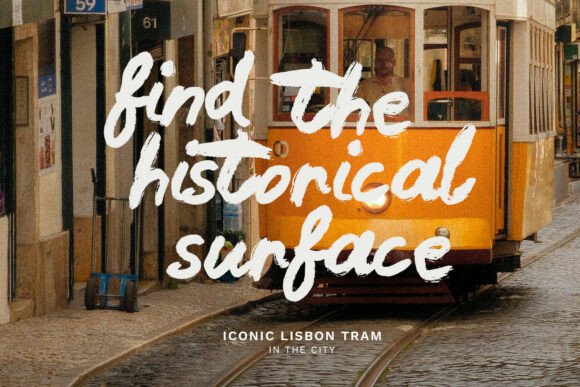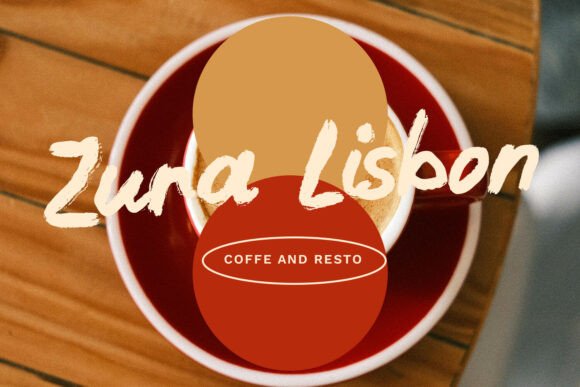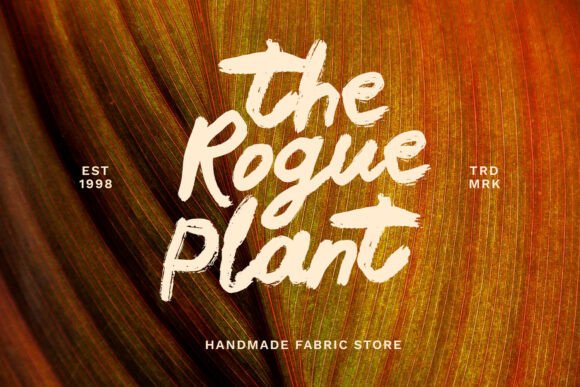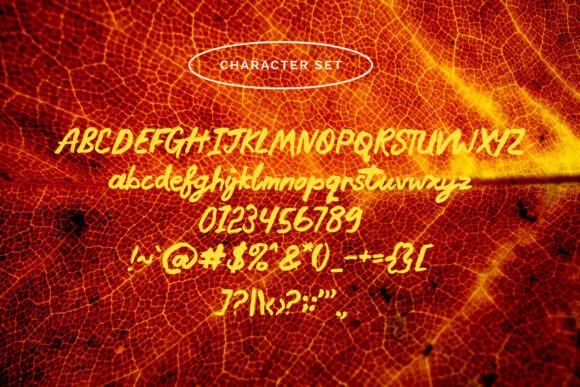
Introduction to Mantis Love Font
Have you ever stared at a blank canvas, waiting for inspiration to strike? It’s that moment when you crave a design that feels authentic and handmade. For designers, there’s nothing quite like the thrill of creating a piece that’s truly unique and reflects their artistic vision. And that’s exactly what the Mantis Love Font offers – a natural brush font that exudes a sense of organic charm and character.
Designed to evoke the feel of hand-stroked brushstrokes and authentic ink textures, this font is a game-changer for any creative project. With its raw yet balanced aesthetic, Mantis Love Font brings a level of expressiveness and artistry to your designs that’s hard to find elsewhere.
Key Features of Mantis Love Font
- High-quality, unique font design perfect for creative projects and personal use, with a transparent background for versatility.
- Unique characteristics: hand-drawn style, elegant curves, and intricate details, making it perfect for adding a touch of sophistication to any design.
Honest Review: Mantis Love Font
I recently came across the Mantis Love Font, and I must say it’s an interesting addition to my design resource collection. As a designer, I’m always on the lookout for unique fonts that can add a personal touch to my creative projects.
The Mantis Love Font is a high-quality, free download that’s perfect for designers who want to add a bit of whimsy to their designs. One of the standout features of this font is its transparent background, which makes it easy to layer and combine with other design elements.
- Unique and playful design that’s perfect for creative projects
- Transparent background makes it easy to layer and combine with other design elements
- May not be suitable for formal or corporate designs due to its playful nature
- Some users may find the font too ornate or busy
Overall, I’m impressed with the Mantis Love Font and think it’s a great addition to any designer’s collection. It’s perfect for designers who want to add a bit of personality to their designs and are willing to take risks with their creative project.
Designing with Mantis Love Font
When designing with the Mantis Love Font, consider using a transparent background to create a clean and minimalist look. This font is ideal for creating eye-catching titles and headings for your design project.
Some common use cases for the Mantis Love Font include creating social media graphics, designing wedding invitations, and crafting unique titles for your blog posts. To get the most out of this font, experiment with different font sizes and colors to create a visually appealing design.
Alternatives to Mantis Love Font
Great Vibes Font is a beautiful, handwritten script font perfect for creative projects that require a touch of elegance. It features a transparent background and is available for free download. Great Vibes Font is ideal for wedding invitations, quotes, and other design elements where a personal touch is needed.
Compared to Mantis Love Font, Great Vibes Font has a more delicate and refined look, making it suitable for projects that require a softer tone. While Mantis Love Font is bolder and more playful, Great Vibes Font is better suited for projects that require a more sophisticated feel.
Alex Brush Font is a high-quality, handwritten script font that exudes creativity and sophistication. It features a transparent background and is available for free download. Alex Brush Font is ideal for design projects that require a touch of whimsy and elegance, such as logos, branding materials, and marketing materials.
Compared to Mantis Love Font, Alex Brush Font has a more refined and polished look, making it suitable for projects that require a more professional tone. While Mantis Love Font is bolder and more playful, Alex Brush Font is better suited for projects that require a more refined feel.
Q: Is the Mantis Love Font suitable for print or digital use?
Yes, the Mantis Love Font is designed to be versatile and can be used for both print and digital projects. Its high-quality design ensures that it will look great in a variety of formats, from business cards to website headers.